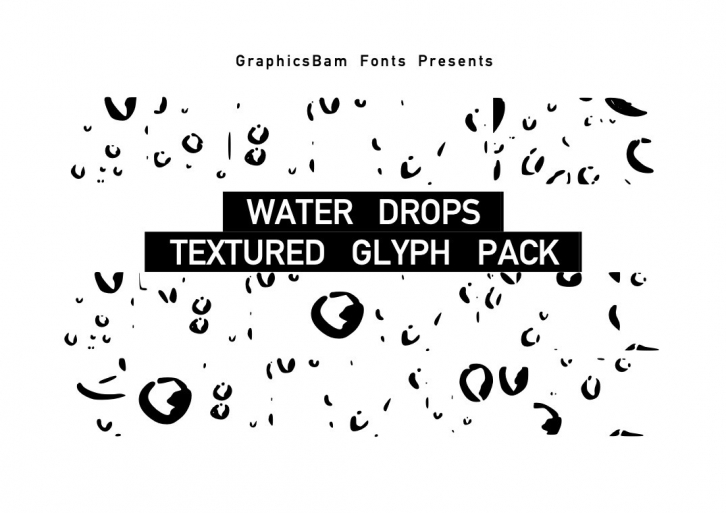
Water Droplet Glyphs is a massive pack of glyphs featuring a set of drops of water textures. It is perfect for any water inspired design or craft project.